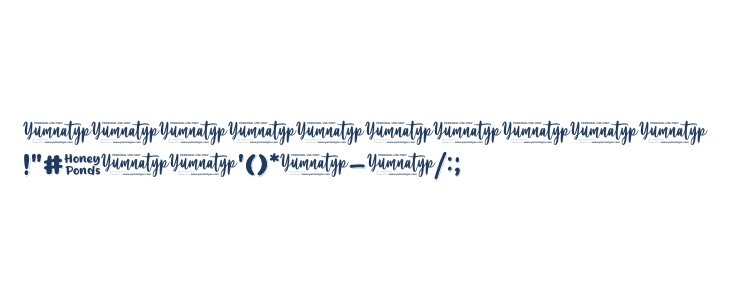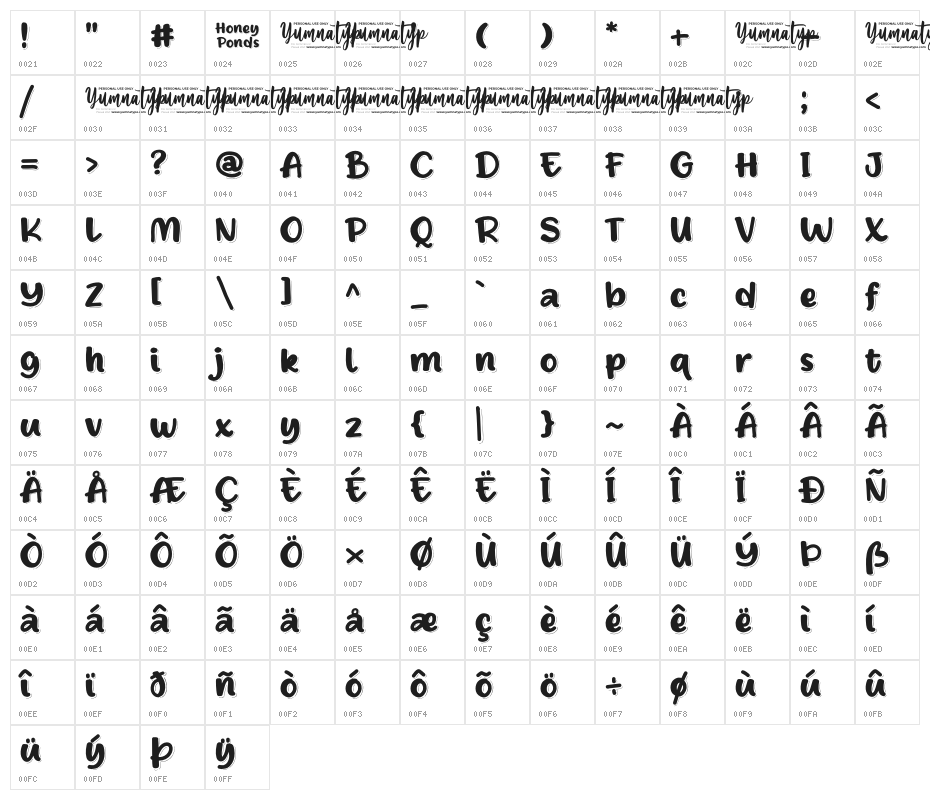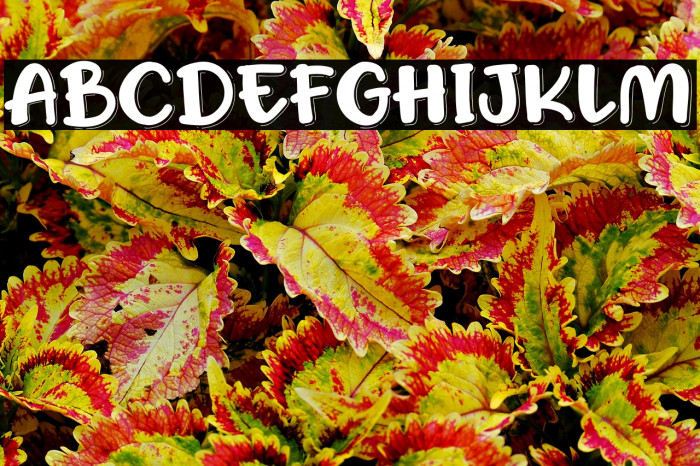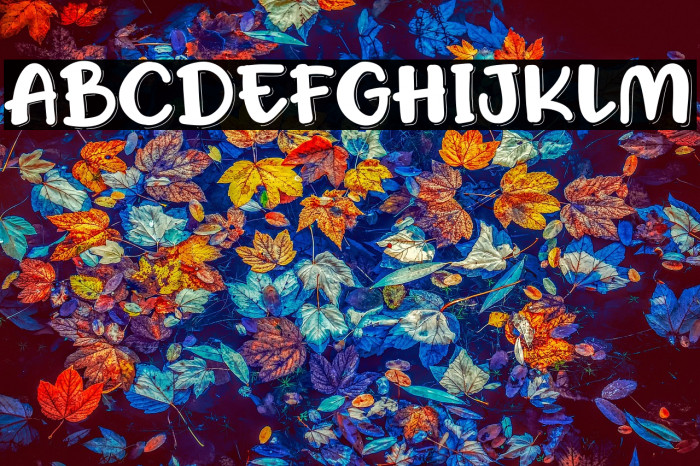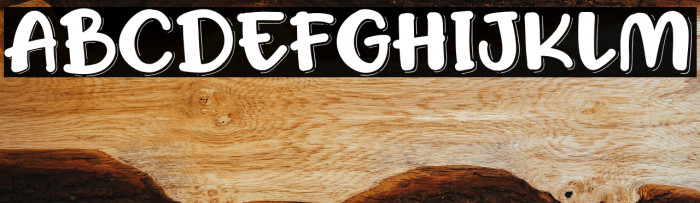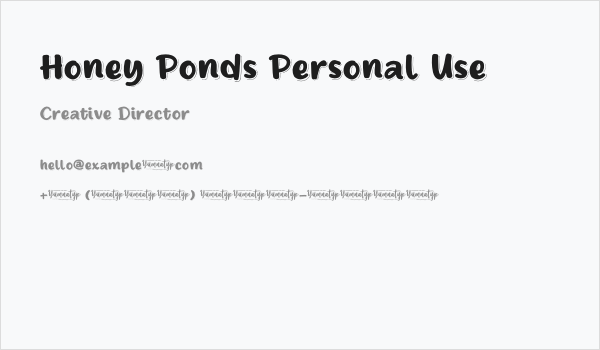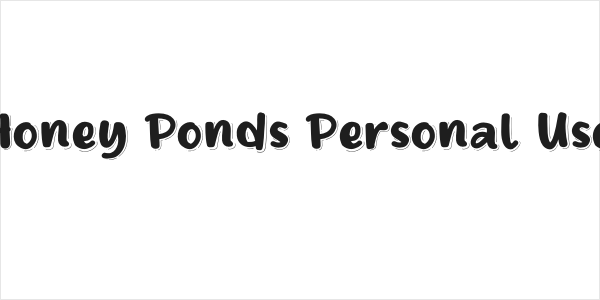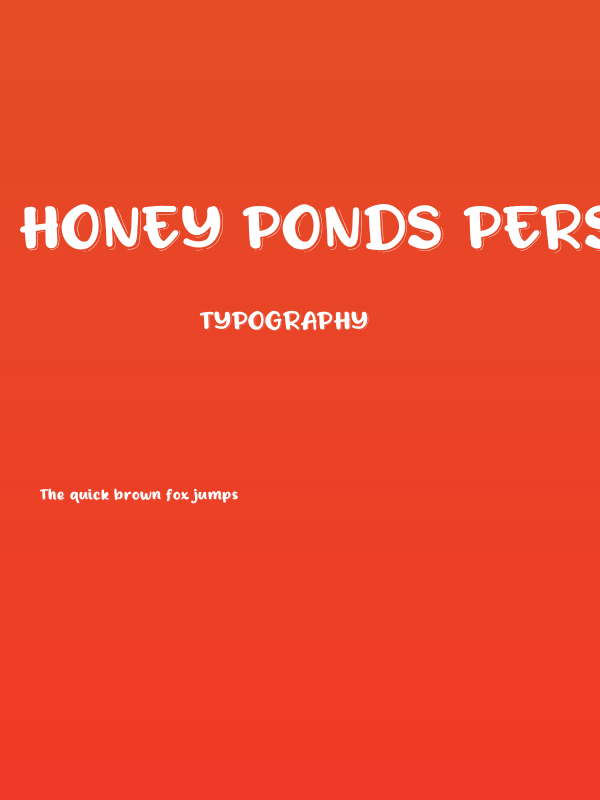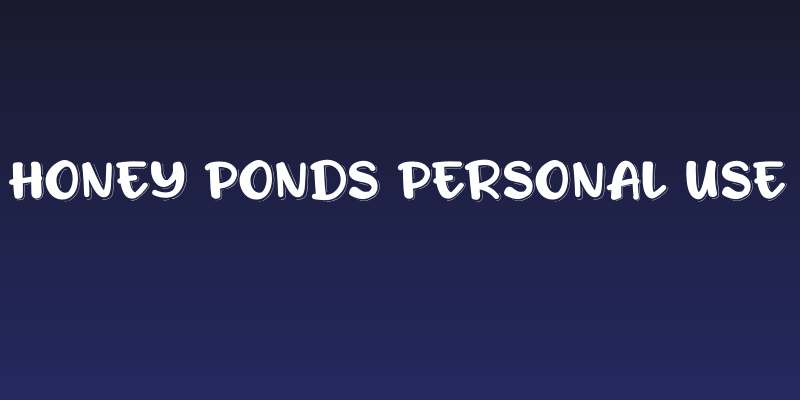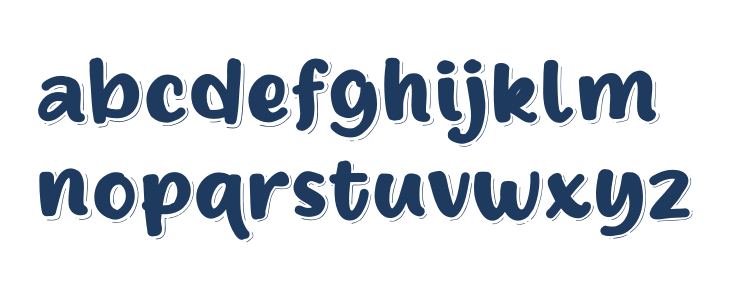
Honey Ponds Personal Use Font
Honey Ponds Personal Use Description
This font features a bold and playful design with a handwritten style. The letters are rounded and have a slightly irregular shape, giving them a casual and friendly appearance. The strokes are thick, providing a strong presence on the page, while the slight slant adds a dynamic feel. The font maintains a consistent weight throughout, ensuring readability and balance. Its unique character is enhanced by the subtle variations in line thickness, which add to its charm and individuality. This font is well-suited for projects that require a personal touch, such as invitations, greeting cards, or playful branding.
Overall StylePlayful
Proposed ProjectsIdeal for invitations, greeting cards, playful branding, and personal projects.